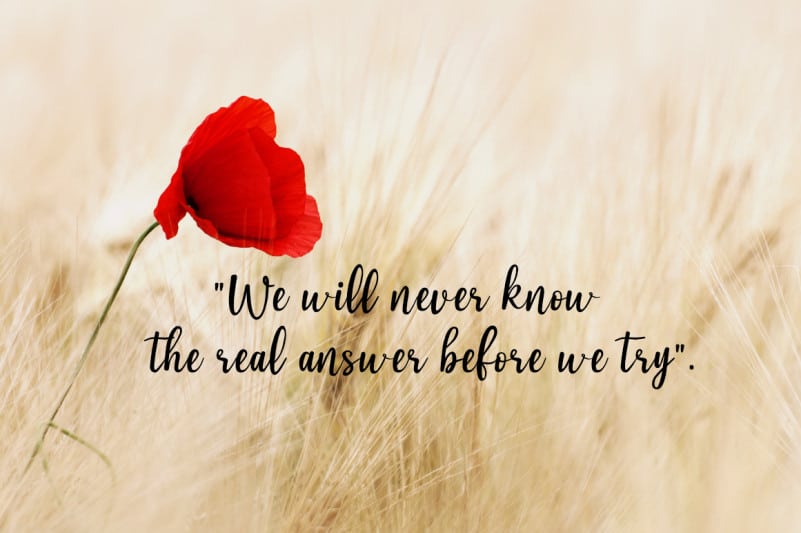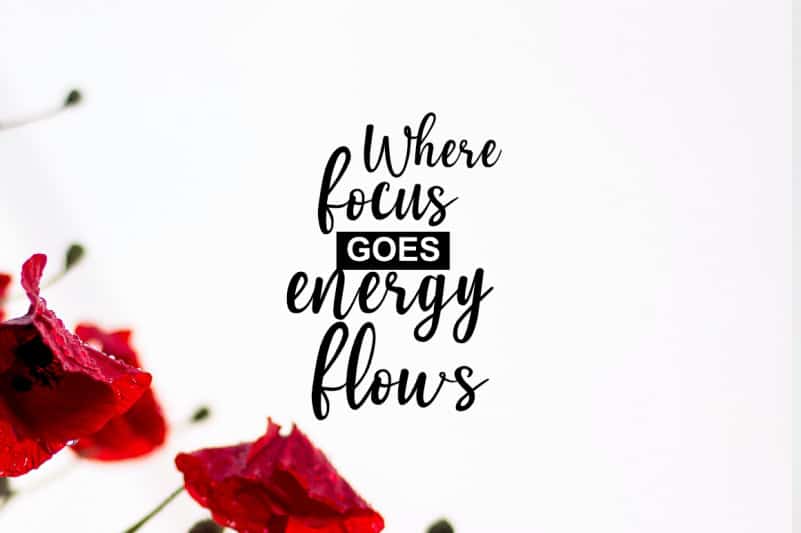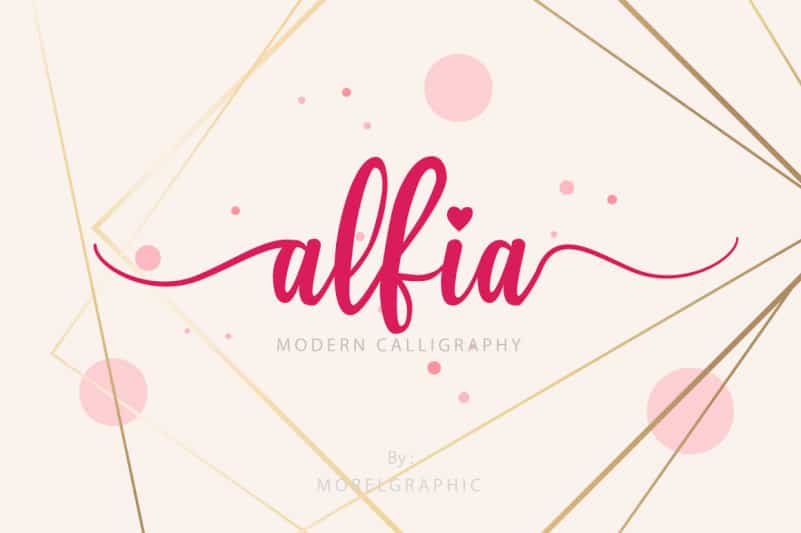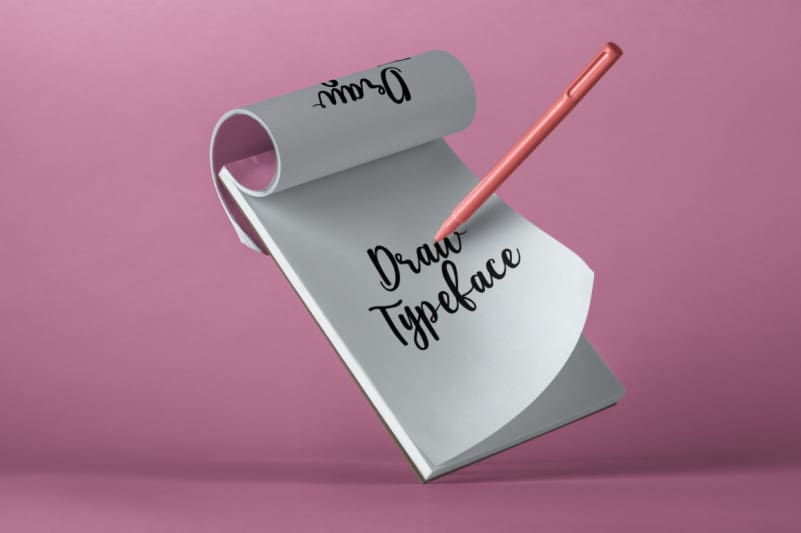
Alfia Calligraphy Fonts come with a complete set of upper and lowercase letters, swash alternatives, ligatures, multilingual symbols, numbers and punctuation marks. This was designed and shared by Morelgraphic. Alfia Calligraphy Font will look fabulous and extraordinary in many ways for your latest project. Alfia is perfect for various projects such as wedding invitation designs, quotes, logos, products